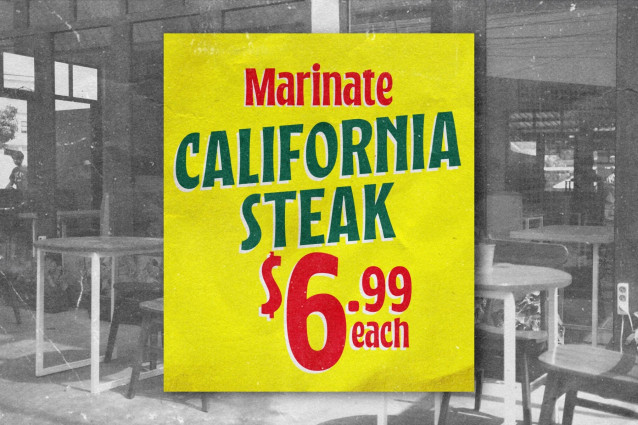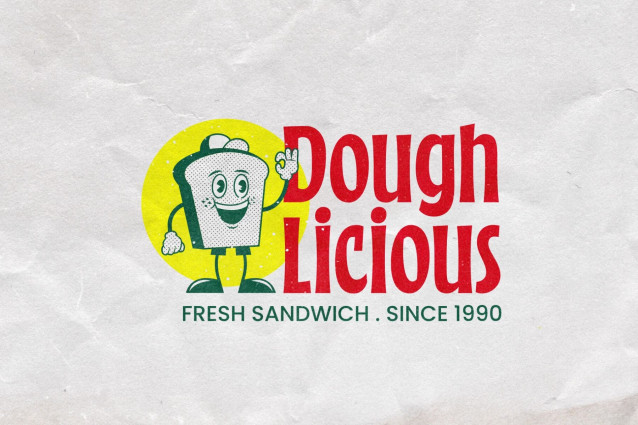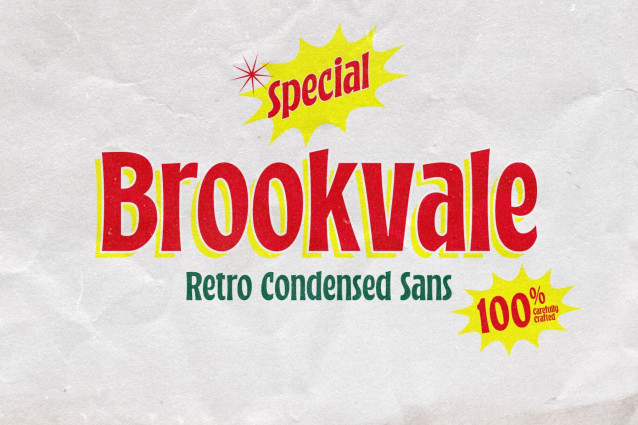
Brookvale – Retro Condensed Font is a nostalgic typeface that channels the essence of the past with a contemporary twist. It’s condensed letterforms and retro flair evoke a sense of vintage charm, making it an ideal choice for projects seeking a dash of retro coolness. Perfect for posters, branding, and designs that celebrate the enduring appeal of yesteryears.
Brookvale is a playful retro condensed sans-serif display font with a warm, mid-century cartoon aesthetic. Its tall, narrow proportions and slightly bouncy letterforms evoke vintage grocery store signage, classic food packaging, and nostalgic advertising illustrations.
Natural fits include casual diner menus, snack food packaging, retro-themed cafe branding, store window signs, event posters, and playful book covers. This typeface is highly effective at large display sizes where its friendly, hand-crafted personality can stand out.